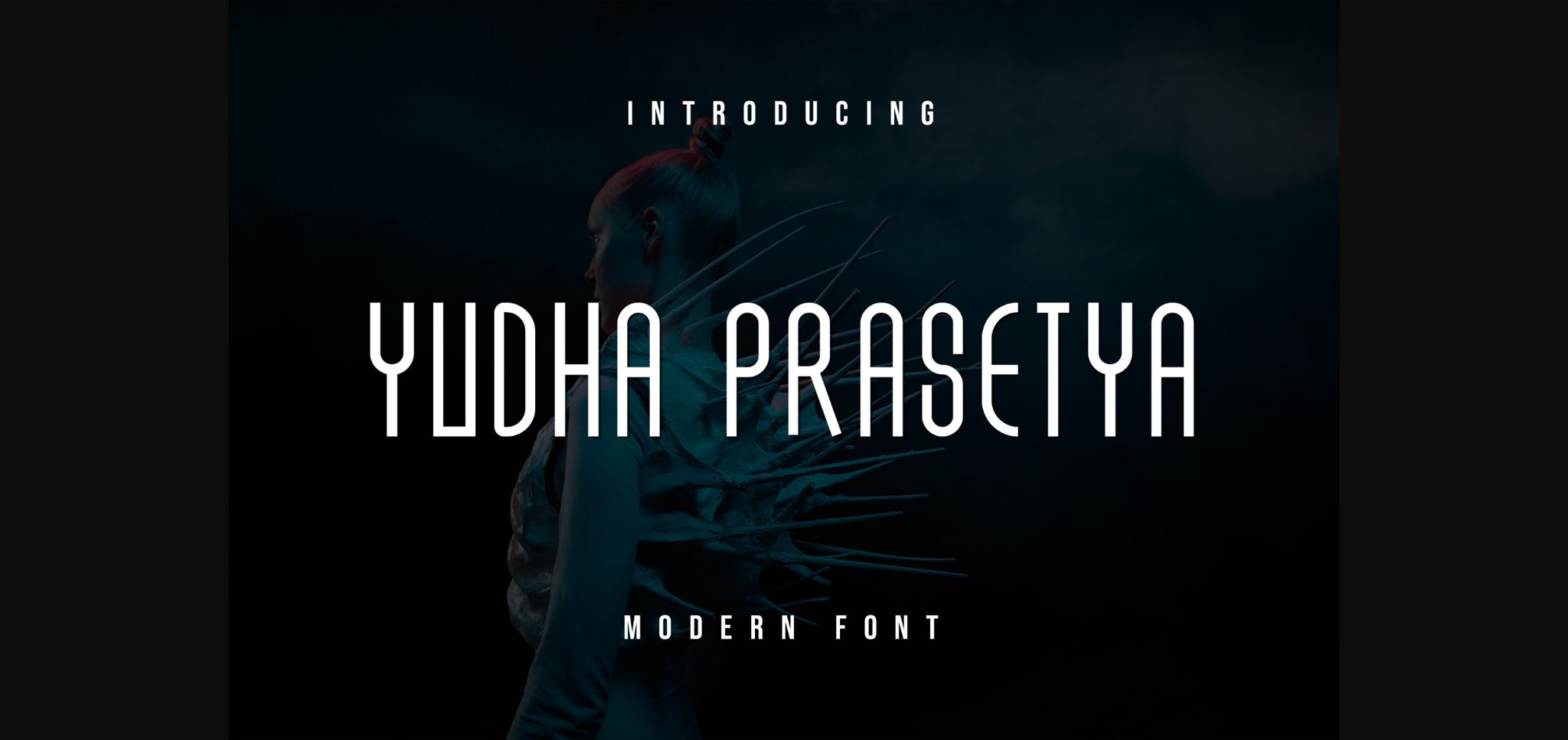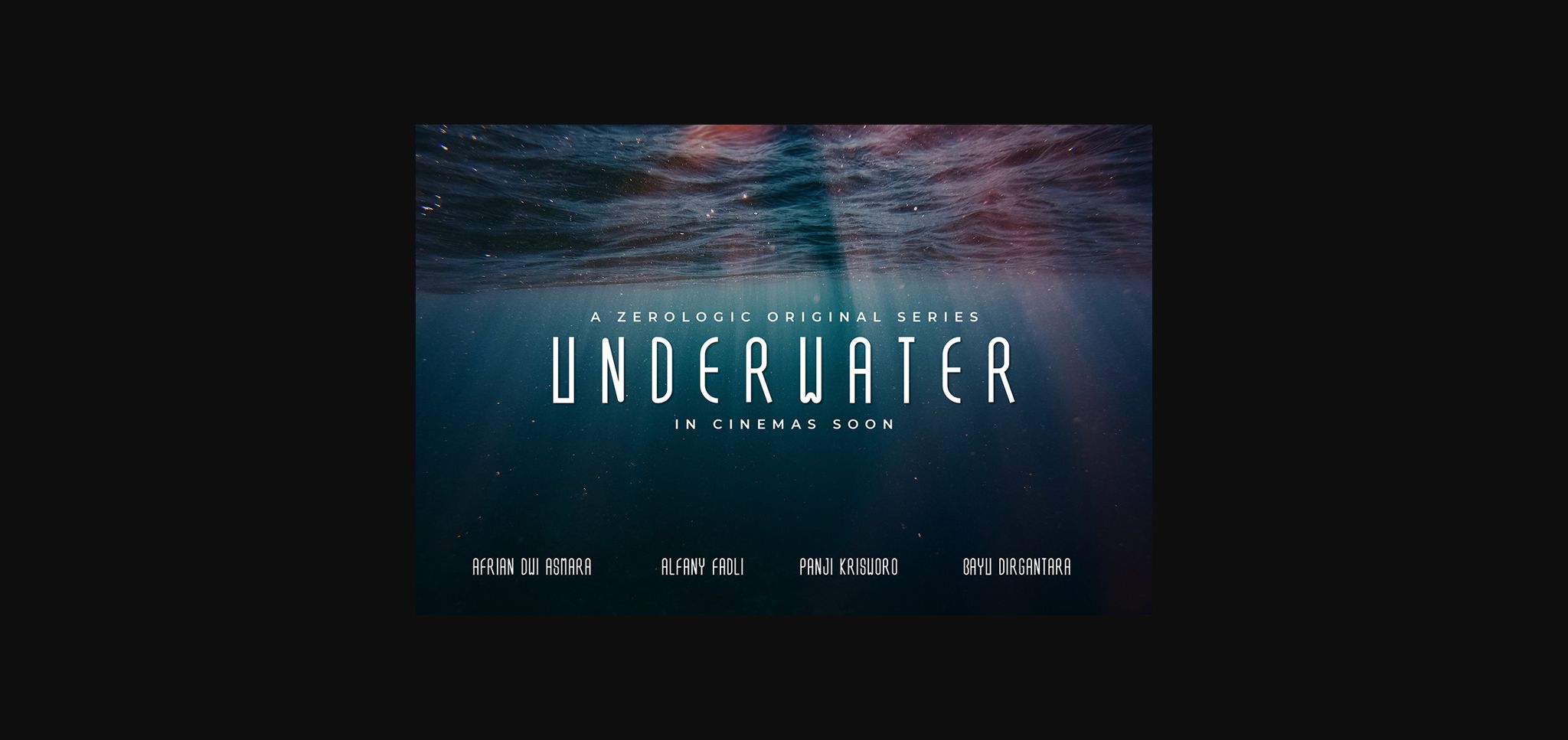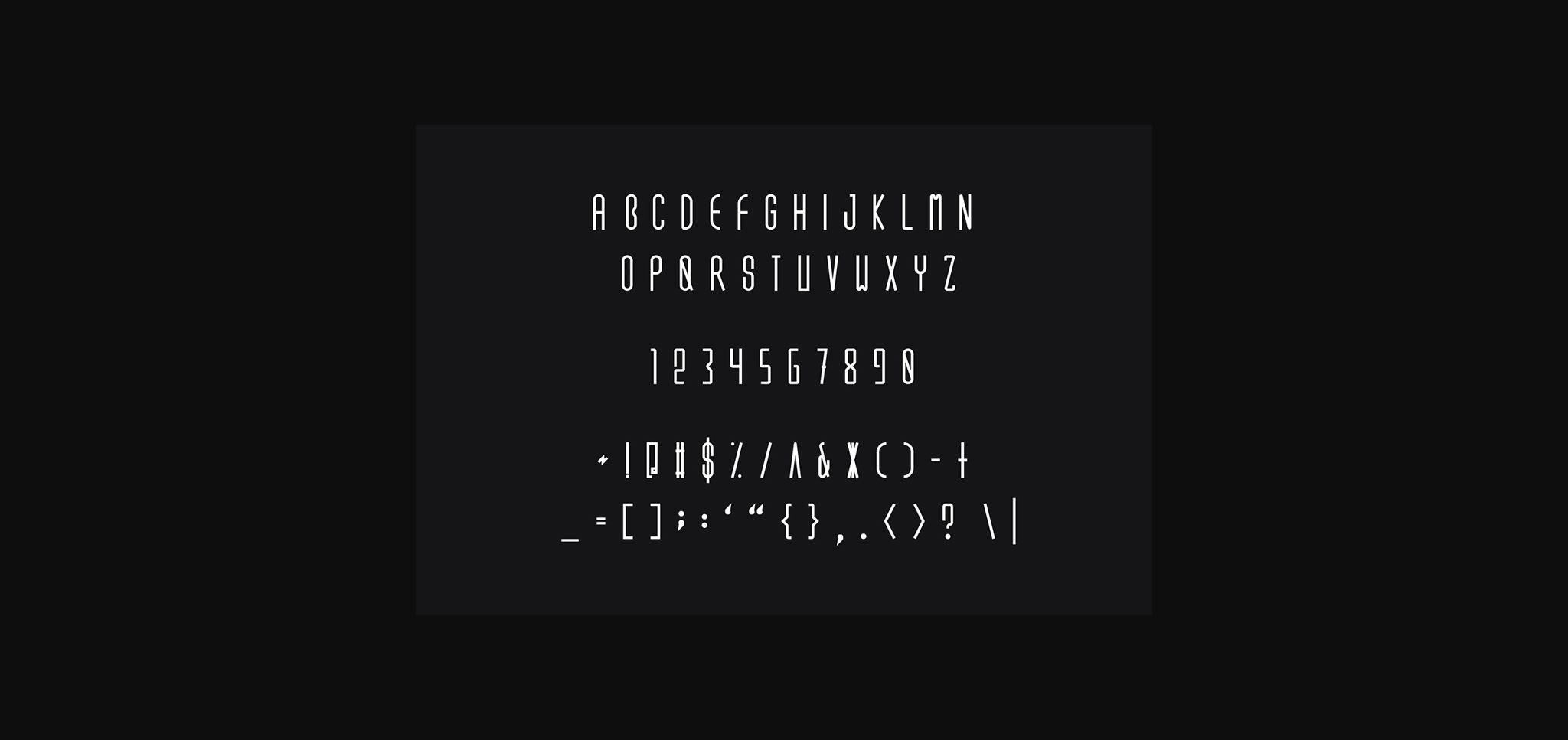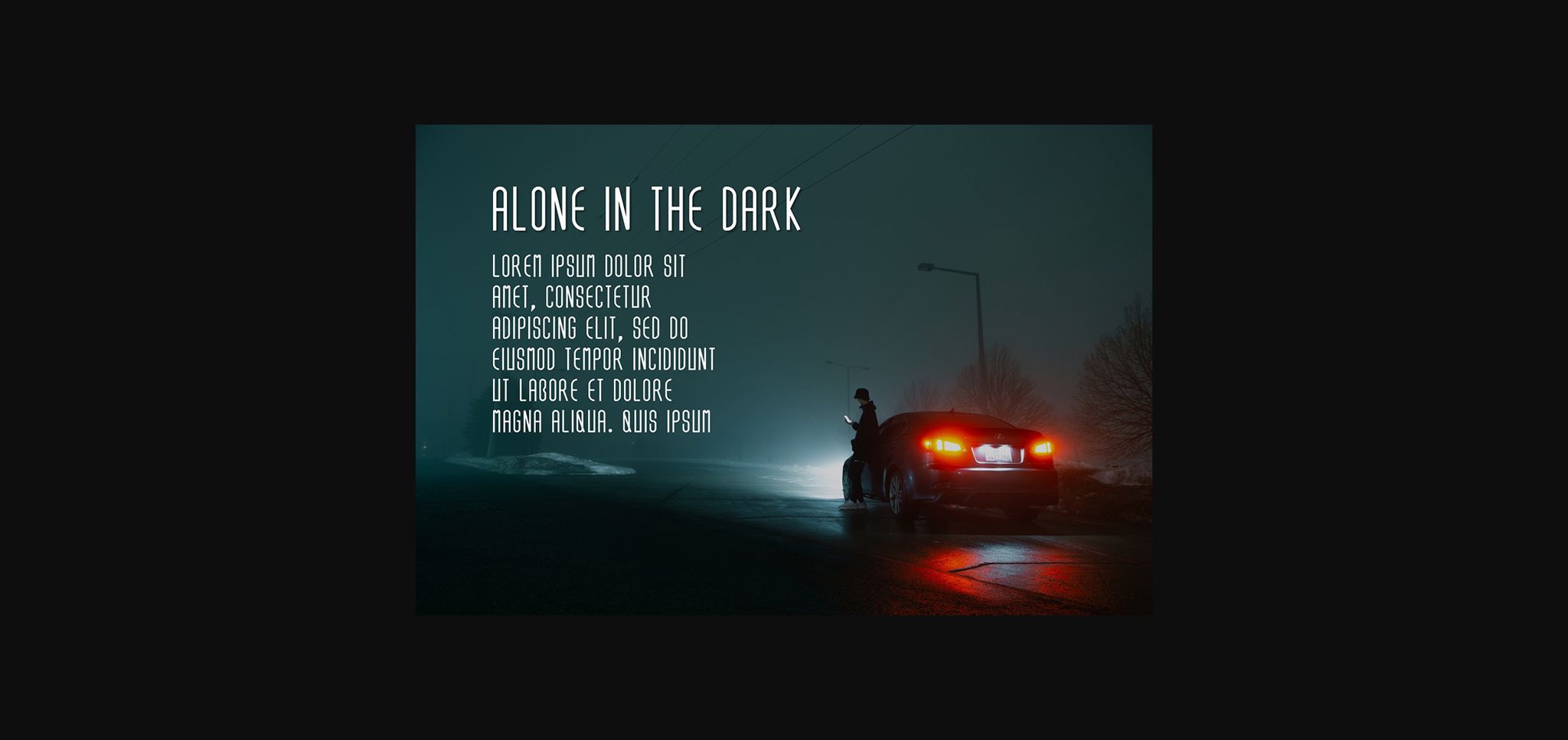
HomeSans Serif FontsYudha Prasetya Font Sans Serif Fonts Yudha Prasetya Font FacebookXPinterestWhatsApp 1 of 7 ... Yudha Prasetya Font Poster 2... Yudha Prasetya Font Poster 3... Yudha Prasetya Font Poster 4... Yudha Prasetya Font Poster 5... Yudha Prasetya Font Poster 6... Yudha Prasetya Font Poster 7... About Yudha Prasetya Font Yudha Prasetya is a modern and stylish sans serif font. Fall in love with its incredibly distinct and timeless style and use it to create spectacular designs! DOWNLOAD NOW People also explored The Mind Rain Font Boldy Boho Font Stanlist Font Twin Sisters Font Welcome Home Sweet Font Routinely Script Font Limit Corner Font Titana Akbar Font Kaizoku Font 328 0 TagsYudha Prasetya Font Previous articleAdvent Font Pairing FontNext articleYujinjaka Font LEAVE A REPLY Cancel reply Comment: Please enter your comment! Name:* Please enter your name here Email:* You have entered an incorrect email address! Please enter your email address here Website: Save my name, email, and website in this browser for the next time I comment. Personal Use Free Lumber Personal Use Free Read more about this font Silver Bullet Personal Use Free Read more about this font Xplor Personal Use Free Read more about this font Hearted Personal Use Free Read more about this font BLOG Using Fonts in Digital Marketing: Tips to Strengthen Your Brand Identity In the realm of digital marketing, every visual element plays a crucial role in shaping a brand's identity, and fonts are no exception. The... Transform Your Website: Elevate Your Typography with 7 Best Web Font Generators Modern Sans-Serif Fonts That Brands Love in 2025 Best Fonts for YouTube Videos: Make Your Thumbnails Stand Out